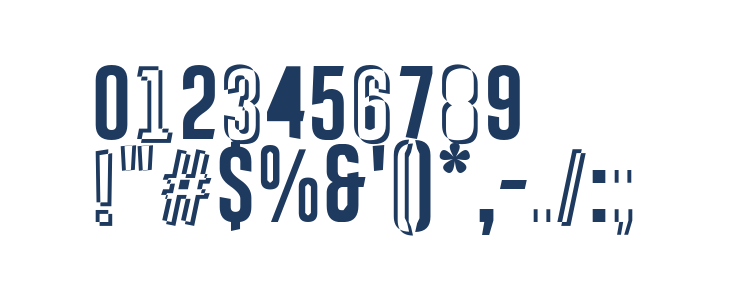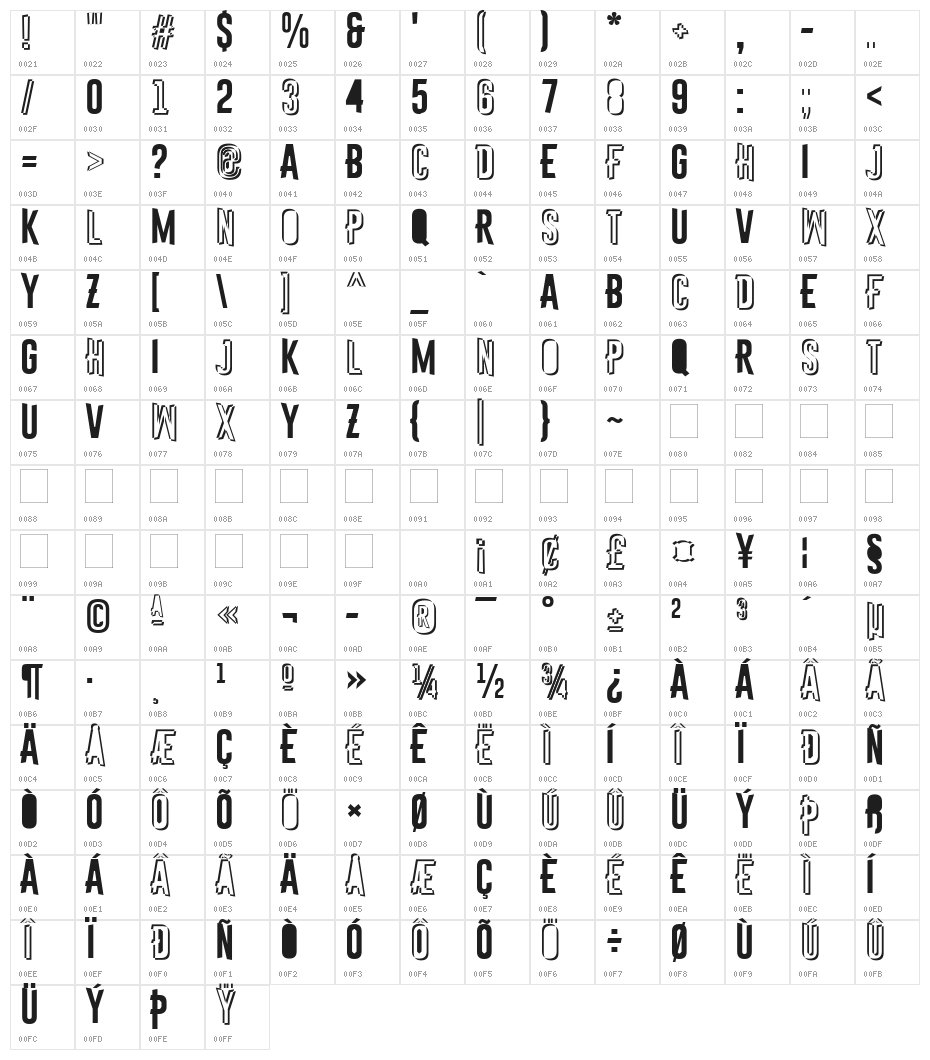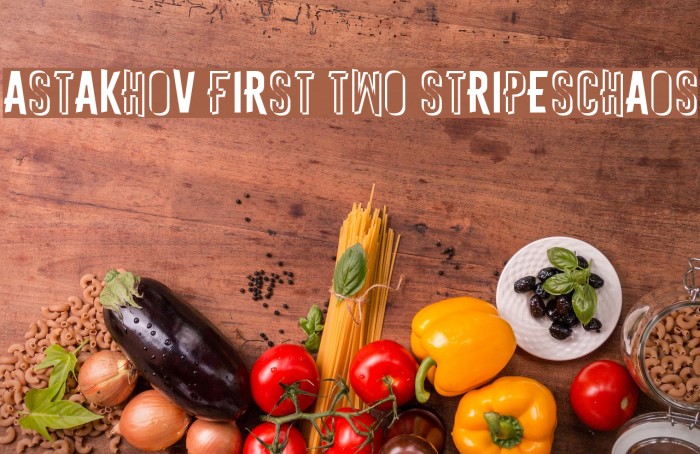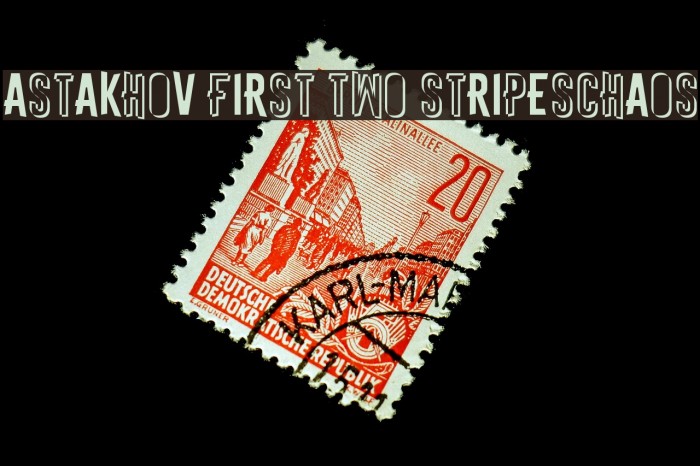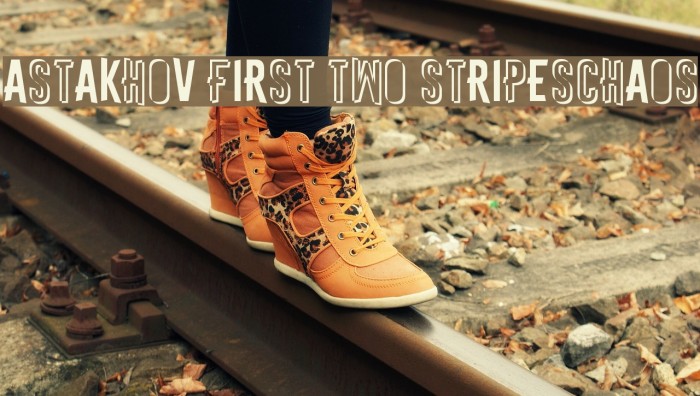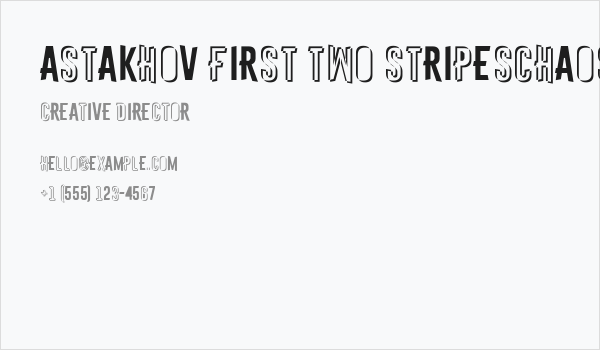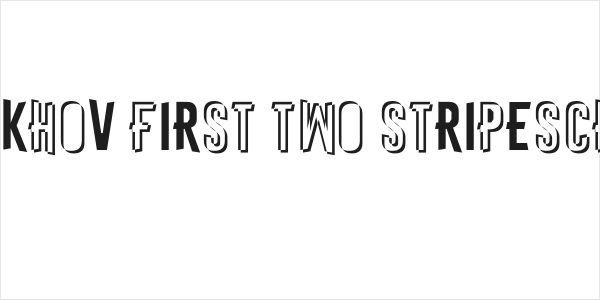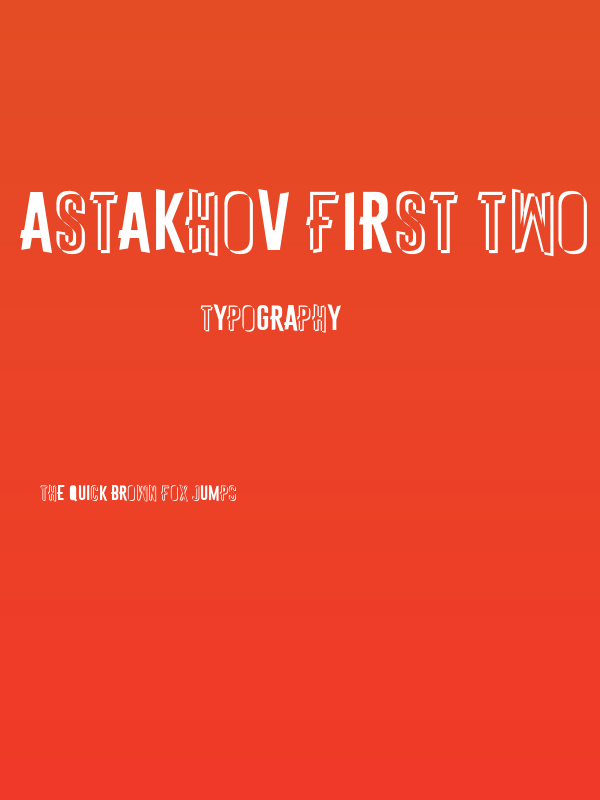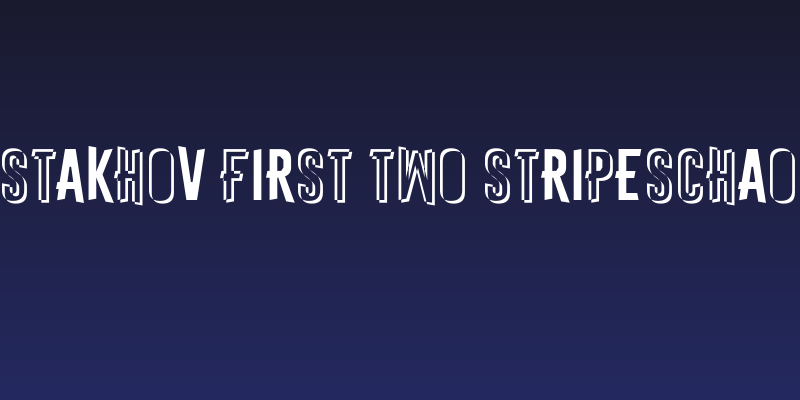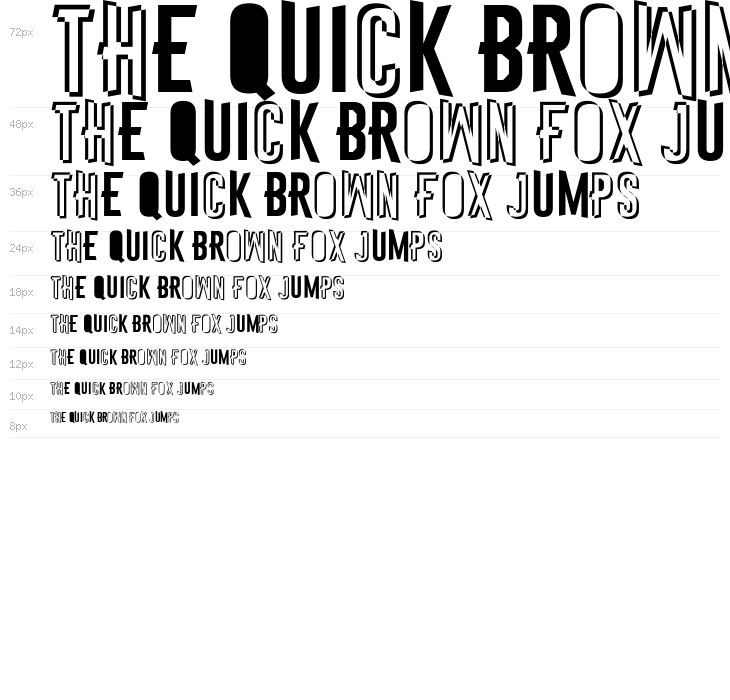
Astakhov First Two StripesChaos Font
Astakhov First Two StripesChaos Description
This font features a bold and dynamic design with a mix of solid and outlined characters, creating a striking visual contrast. The uppercase letters are particularly prominent, with some characters filled and others outlined, giving a sense of movement and energy. The numbers and special characters follow the same pattern, offering a cohesive look across all glyphs. The style is reminiscent of vintage poster fonts, yet it maintains a modern edge with its clean lines and structured form. The font's unique combination of filled and outlined elements makes it ideal for eye-catching designs.
| Proposed Projects | Ideal for posters, headlines, branding, and any project requiring a bold statement. |